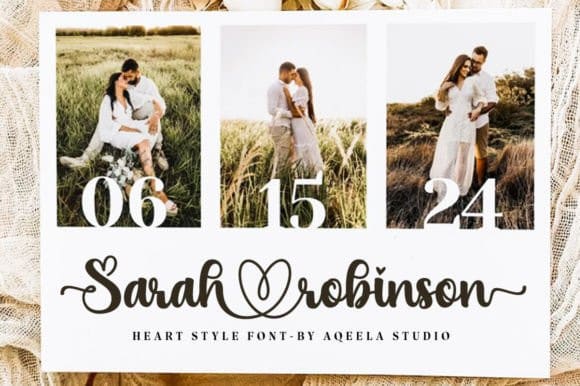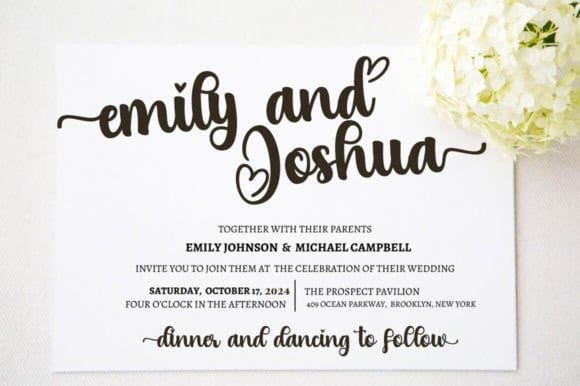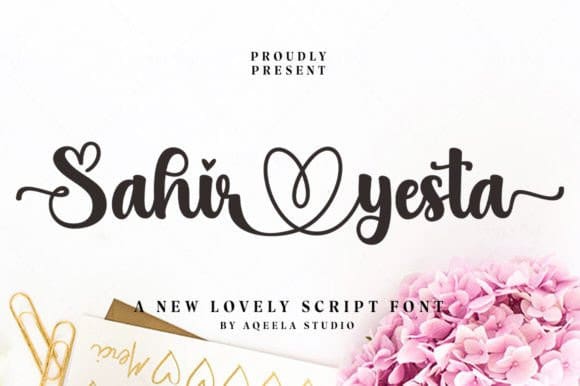
Sahir Yesta Font
Sahir Yesta Font is a delightful handwritten font meticulously crafted with a touch of elegance, offering a unique blend of sophistication and charm. Perfect for adding a personal touch to your designs, this font exudes a graceful flair that enhances any project with its artistic and refined style.